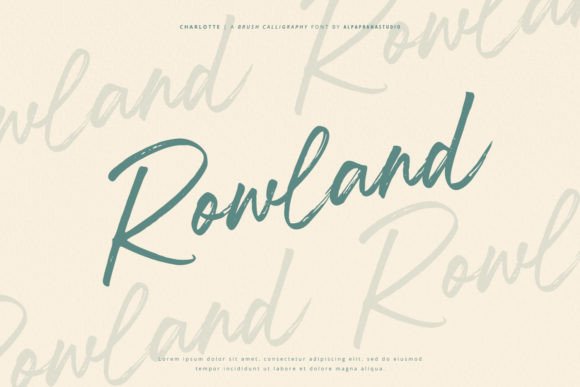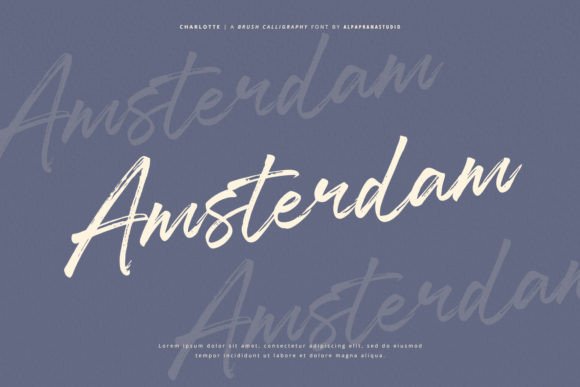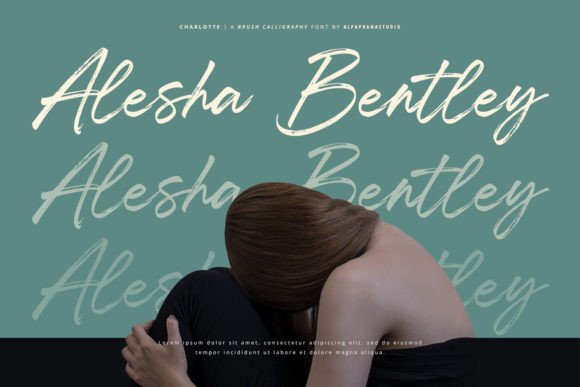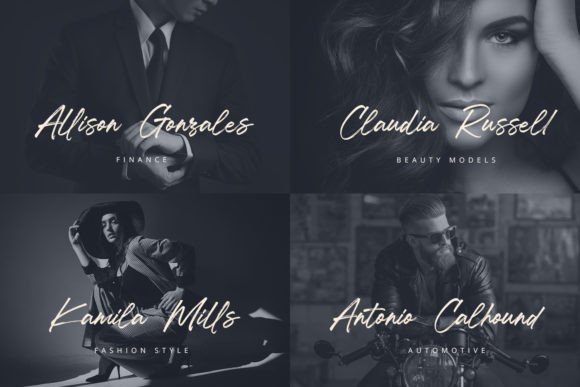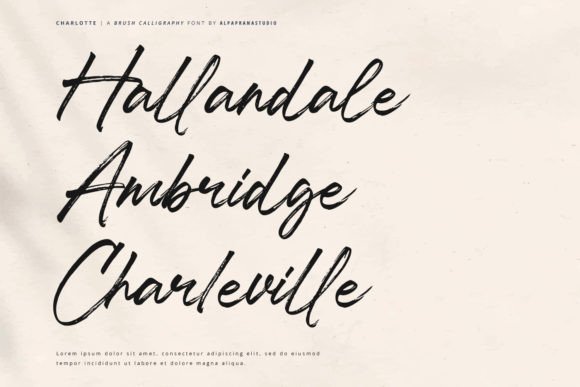
Introducing Charlotte Font: Elevate Your Designs with Elegant Brush Calligraphy
Are you a designer or crafter looking for a font that exudes elegance and sophistication? Look no further than Charlotte Font, a stunning brush calligraphy font that brings a perfect blend of natural and modern feels to your designs. In this article, we’ll dive into the world of Charlotte Font, exploring its features, uses, and benefits, and why it’s a must-have for any creative project.
What is Charlotte Font?
Charlotte Font is a beautiful, hand-crafted brush calligraphy font that boasts a unique and elegant style. Its natural and modern feels make it an ideal choice for a wide range of design projects, from branding and logo design to lettering, logotypes, and more. With its flowing lines and subtle imperfections, Charlotte Font adds a touch of sophistication and whimsy to any design.
Key Features of Charlotte Font
- Elegant and Sophisticated: Charlotte Font features a beautiful, cursive script with a touch of elegance and refinement.
- Natural and Modern Feels: The font’s unique blend of natural and modern styles makes it perfect for designs that require a fresh and contemporary look.
- Highly Versatile: Charlotte Font can be used for a wide range of design projects, including branding, logo design, lettering, logotypes, clothing, posters, magazines, packaging, and more.
Uses of Charlotte Font
Charlotte Font is a highly versatile font that can be used for a wide range of design projects. Here are some ideas to get you started:
- Branding and Logo Design: Use Charlotte Font to create a stunning logo or brand identity that exudes elegance and sophistication.
- Lettering and Logotypes: Create beautiful lettering and logotypes with Charlotte Font, perfect for adding a personal touch to your designs.
- Clothing and Apparel: Use Charlotte Font to create eye-catching designs for clothing, t-shirts, and other apparel.
- Posters and Magazines: Add a touch of elegance to your posters and magazines with Charlotte Font, perfect for creating striking headlines and titles.
- Packaging and Shopping Bags: Use Charlotte Font to create beautiful packaging and shopping bags that stand out from the crowd.
- Book Covers and Photography: Create stunning book covers and photography projects with Charlotte Font, perfect for adding a touch of sophistication and elegance.
- Special Events: Use Charlotte Font to create beautiful invitations, programs, and other materials for special events, such as weddings and parties.
Benefits of Using Charlotte Font
So why choose Charlotte Font for your design projects? Here are just a few benefits of using this stunning font:
- Unique and Eye-Catching: Charlotte Font is a unique and eye-catching font that will help your designs stand out from the crowd.
- Elegant and Sophisticated: The font’s elegant and sophisticated style makes it perfect for designs that require a touch of refinement and luxury.
- Highly Versatile: Charlotte Font can be used for a wide range of design projects, making it a valuable addition to any designer’s toolkit.
In conclusion, Charlotte Font is a stunning brush calligraphy font that brings a perfect blend of natural and modern feels to your designs. With its elegant and sophisticated style, highly versatile uses, and ease of use, Charlotte Font is a must-have for any designer or crafter looking to elevate their designs. Whether you’re working on a branding project, creating a logo, or designing a book cover, Charlotte Font is the perfect choice. So why wait? Download Charlotte Font today and start creating stunning designs that exude elegance and sophistication!